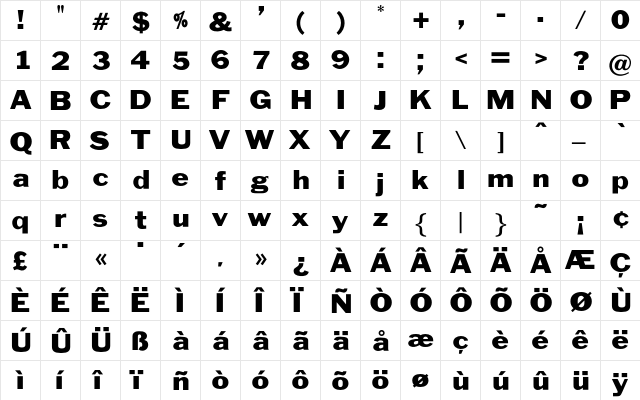
BenjaminGothicWide Regular
Design Context for BenjaminGothicWide Typeface
BenjaminGothicWide has the quiet confidence of well-executed sans-serif typography: versatile, unobtrusive, and dependable at any size.
Font Pairing: Works well alongside a characterful serif or display font that can carry the expressive load while BenjaminGothicWide handles the functional copy.
Pro Tip: Use BenjaminGothicWide for UI labels, navigation, and short-form body copy where clean legibility is the priority.